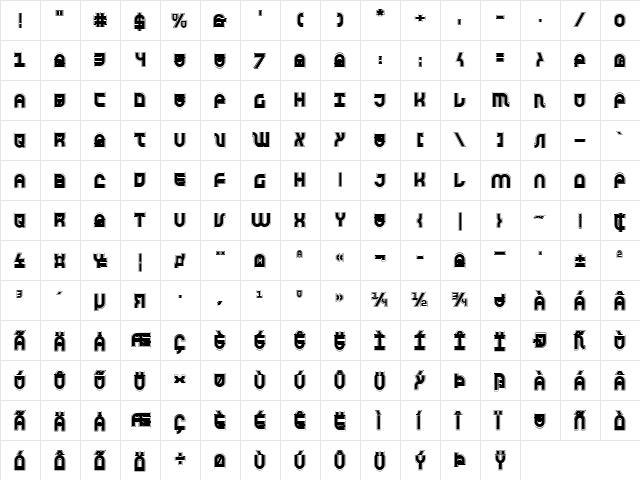
Trek Trooper Academy Regular
Design Context for Trek Trooper Academy Typeface
Trek Trooper Academy is a composed and adaptable typeface that performs quietly and consistently across a wide range of design contexts.